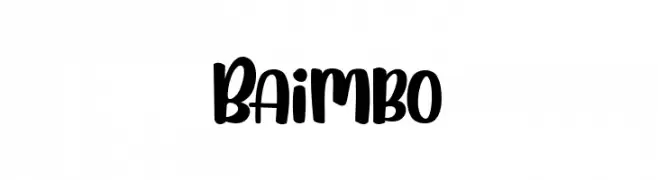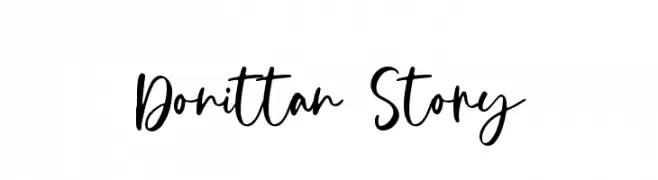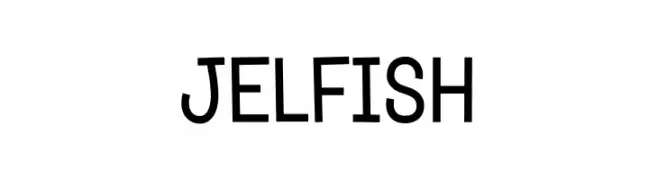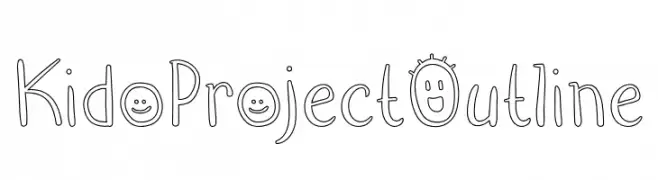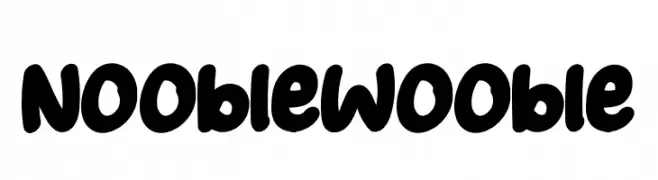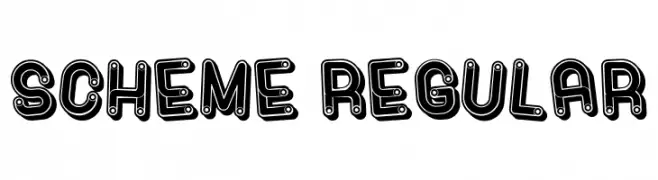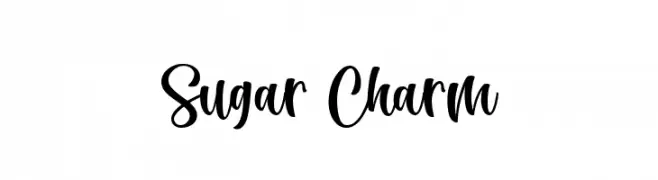
A bold, playful font with a unique outlined and filled design.
A bold, italicized font with a playful and dynamic style.
A playful, bold, and rounded font with a whimsical, cartoonish style.
A playful, handwritten font with dynamic strokes and a modern, whimsical style.
A lively and expressive handwritten font with fluid strokes and dynamic energy.
A bold, playful script font with a brush-like, handwritten style.
A bold, flowing script font with interconnected letters and smooth curves.
A playful, hand-drawn outline font with whimsical elements and a casual style.
A playful, bold font with rounded edges and a hand-drawn feel.
A playful, bold font with rounded, slightly irregular letterforms.